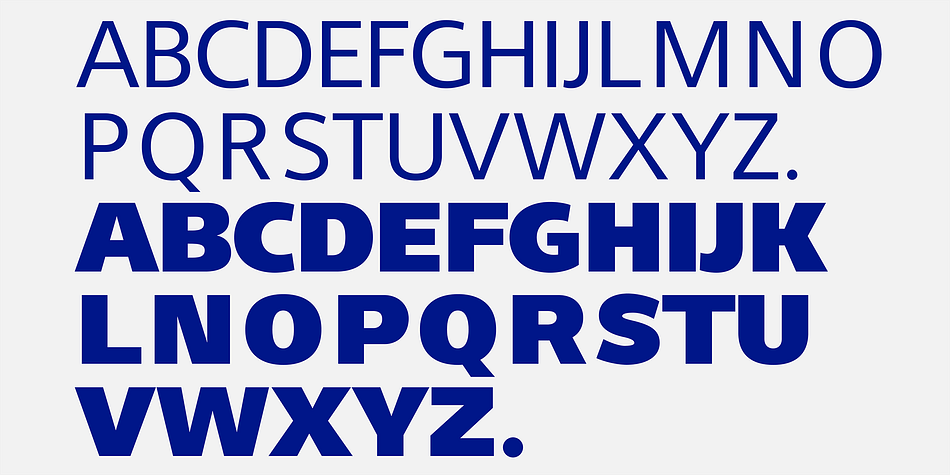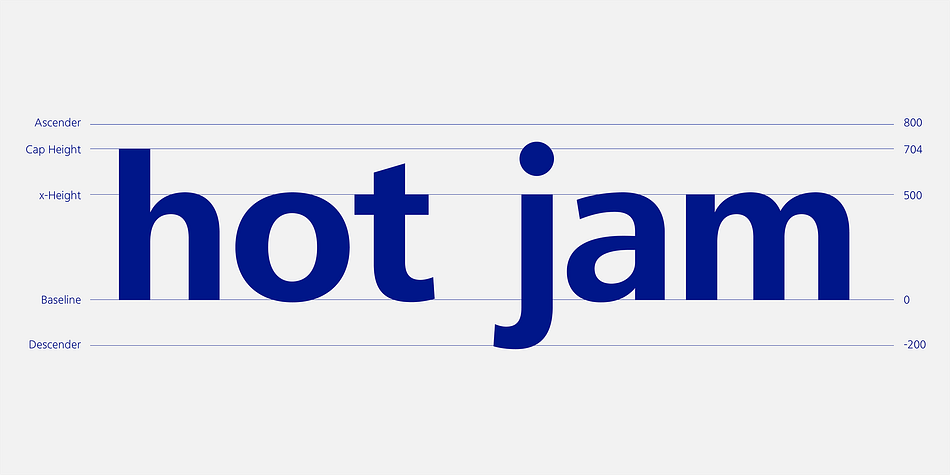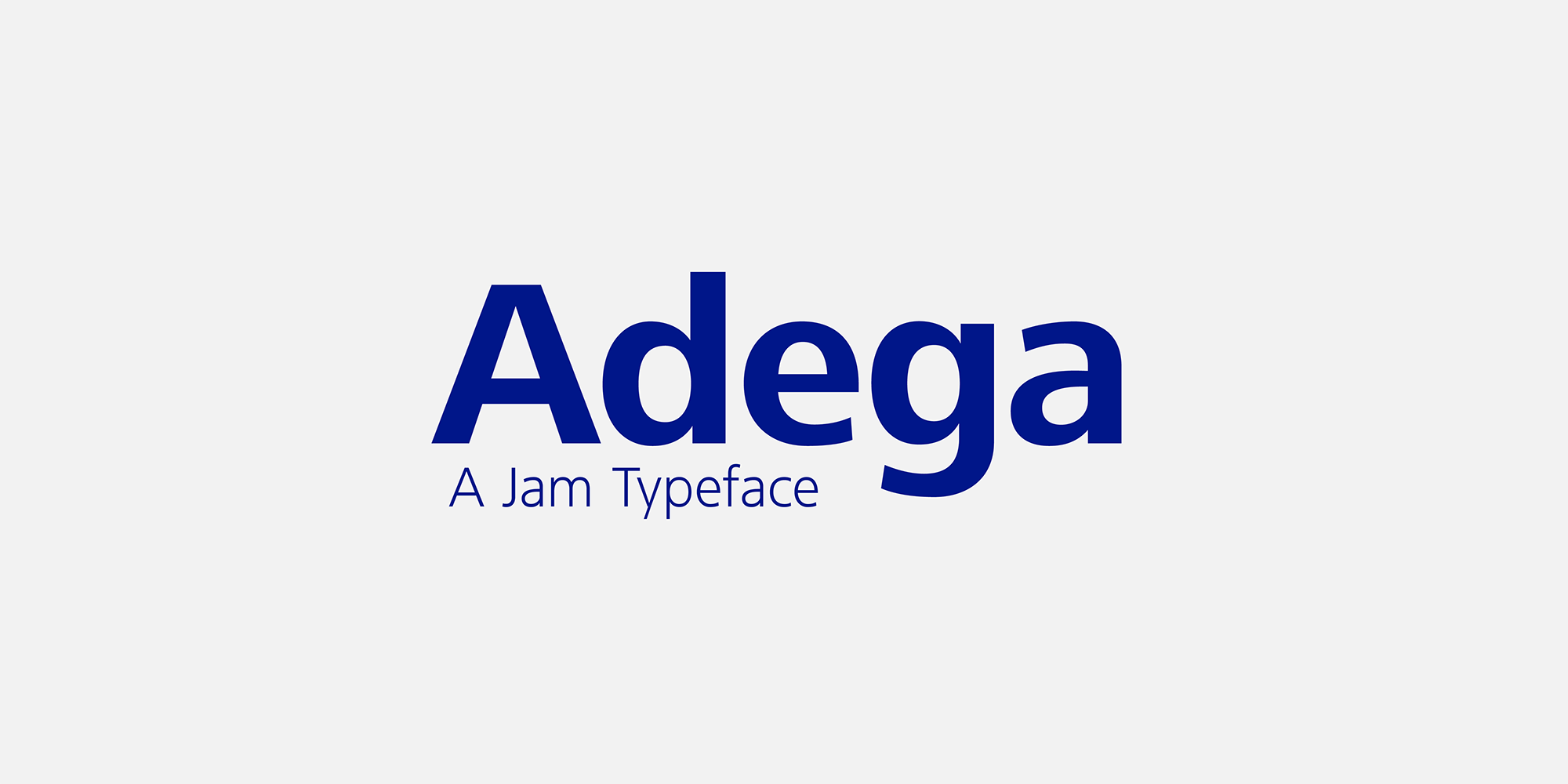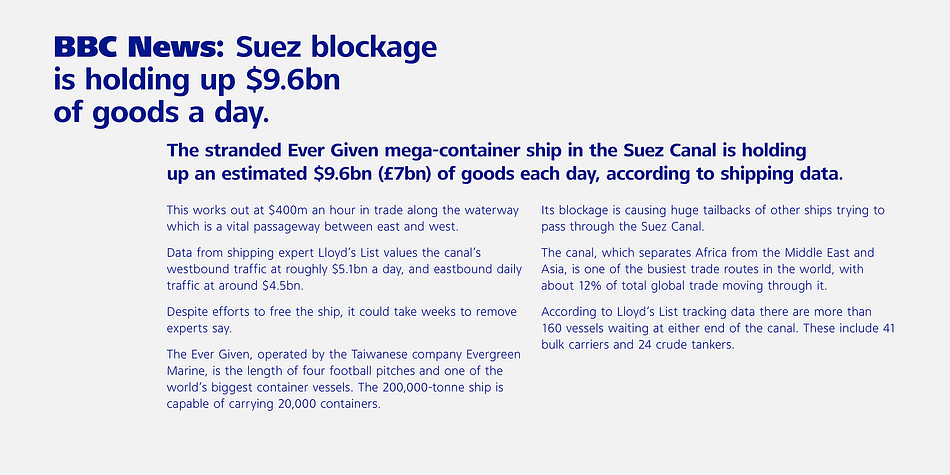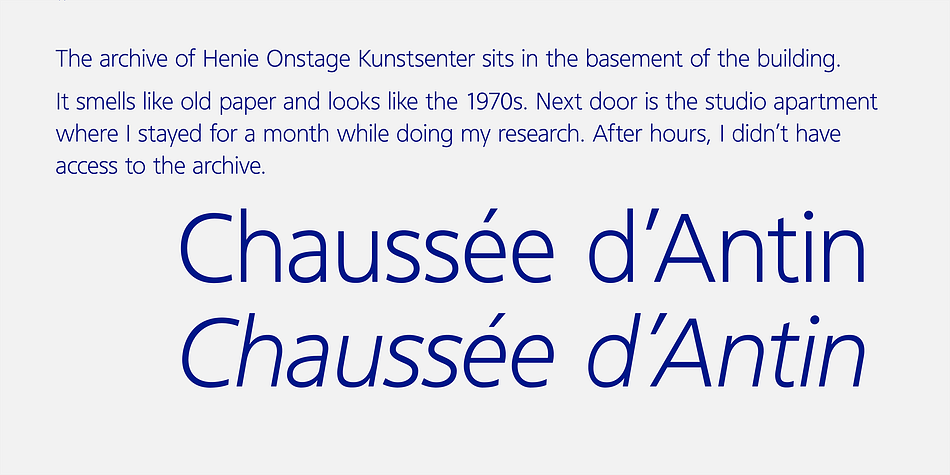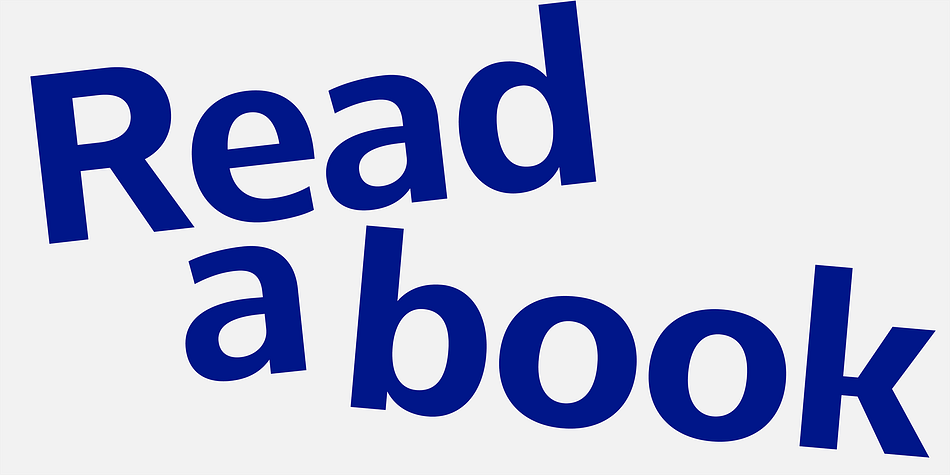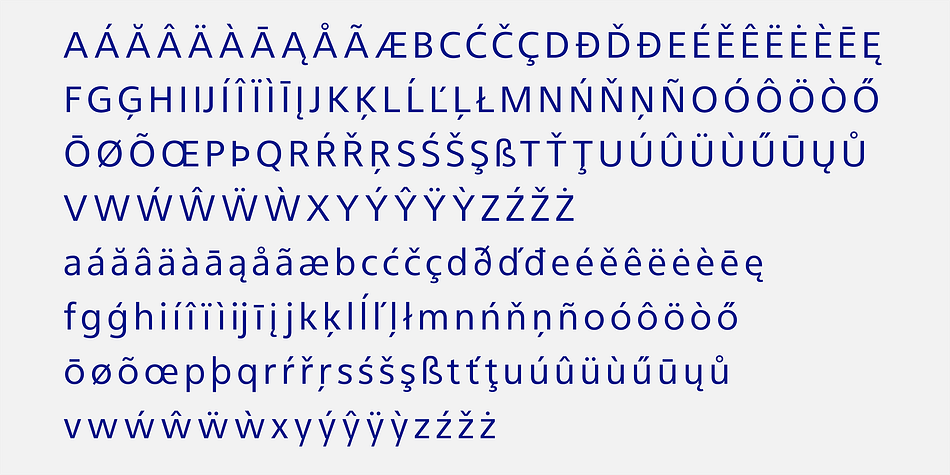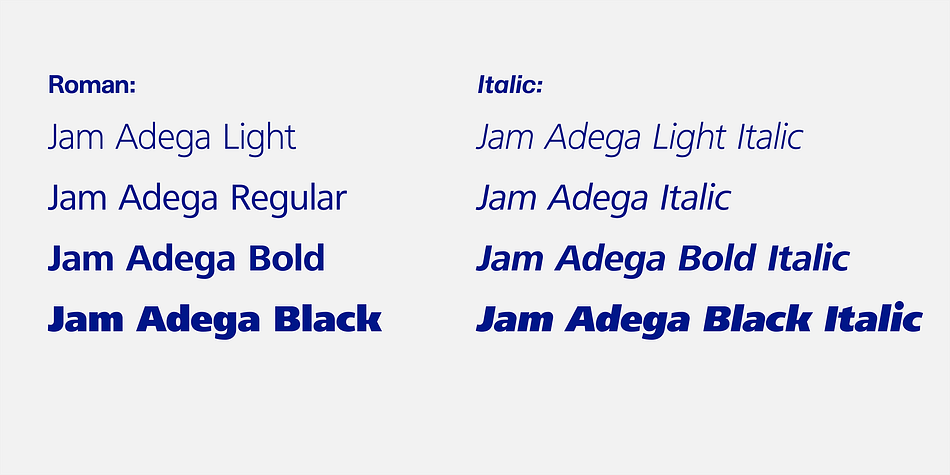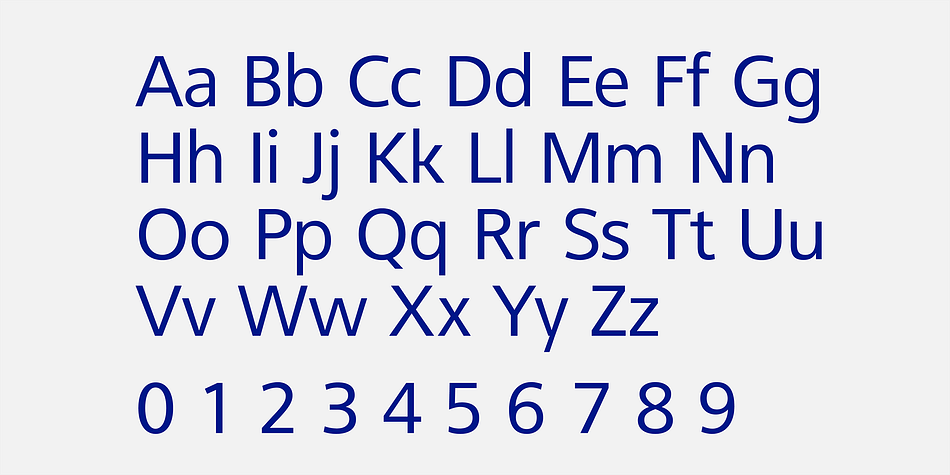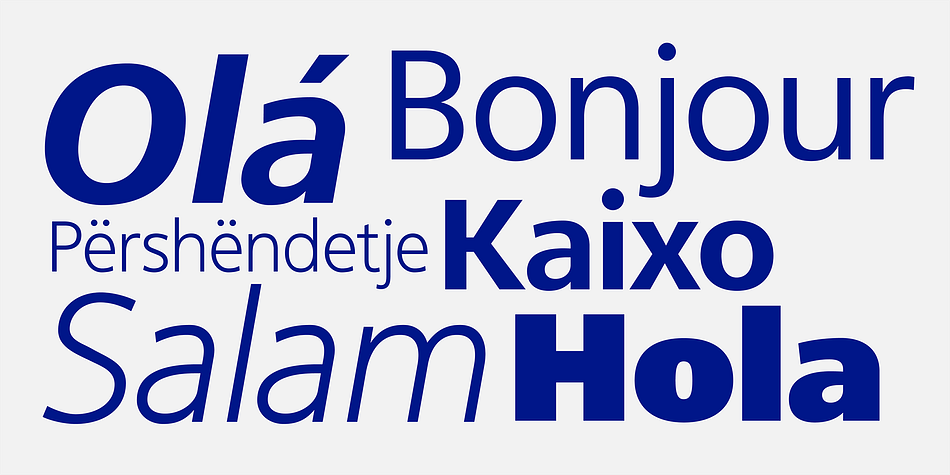
Jam Adega
Designed by João Symington, Jam Adega is a sans serif font family. This typeface has eight styles and was published by JAM Type.
Jam Adega is a humanist sans-serif typeface, intended to be clear and highly legible at a distance or at small text sizes. Jam Adega is extremely legible at a glance.
This typeface can be used in large blocks of small text or as signage because of its instant and clear legibility.